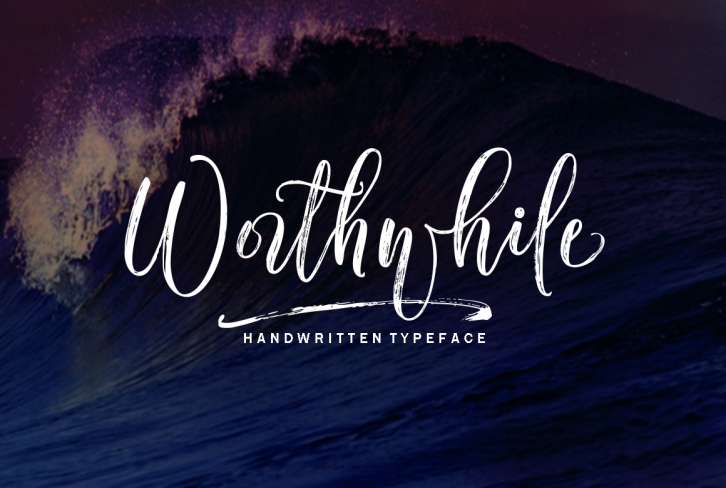
worthwhile is a trendy and unique font with an authentic style. It was designed by joelmaker and it's a great choice for creative people who need such a font. It was released on July 15, 2017 and the file size is 8.84 MB. worthwhile will add an organic vibe to any design idea!